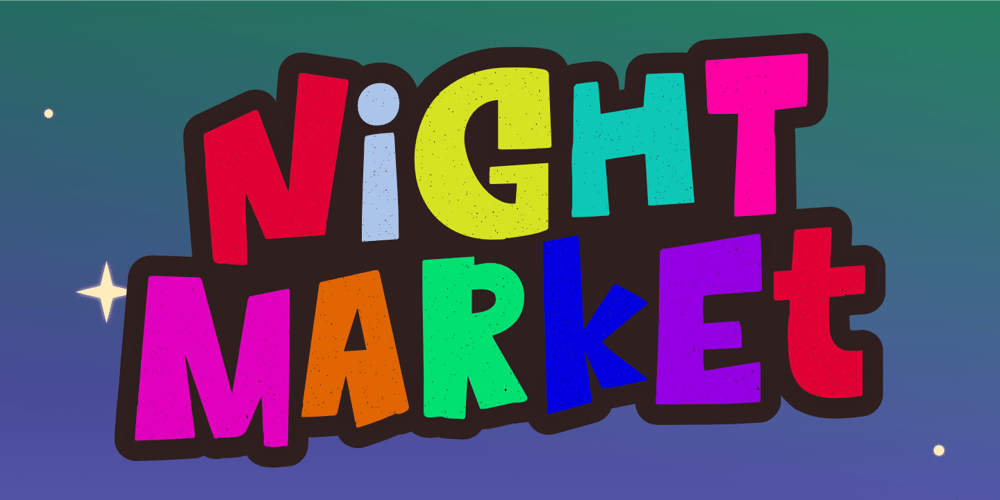
Night Market
Night Market font
Night Market Font Family was designed by Aldy Sidik and published by Epiclinez. Night Market contains 1 styles and family package options. Say goodbye to boring typography and hello to the lively energy that Night Market brings to every design endeavor. From posters promoting events at local night markets to bold signage capturing the spirit of bustling marketplaces, this font is here to infuse your creations with personality and flair with its cool rough textures. Add a dose of playfulness and creativity to your designs with Night Market – because who says business can’t be fun?Night Market features : Standard Latin Numbers, symbols, and punctuations Multilingual Support. Fully accessible without additional design software Simple Installations Works on PC & Mac Uppercase Thank You.